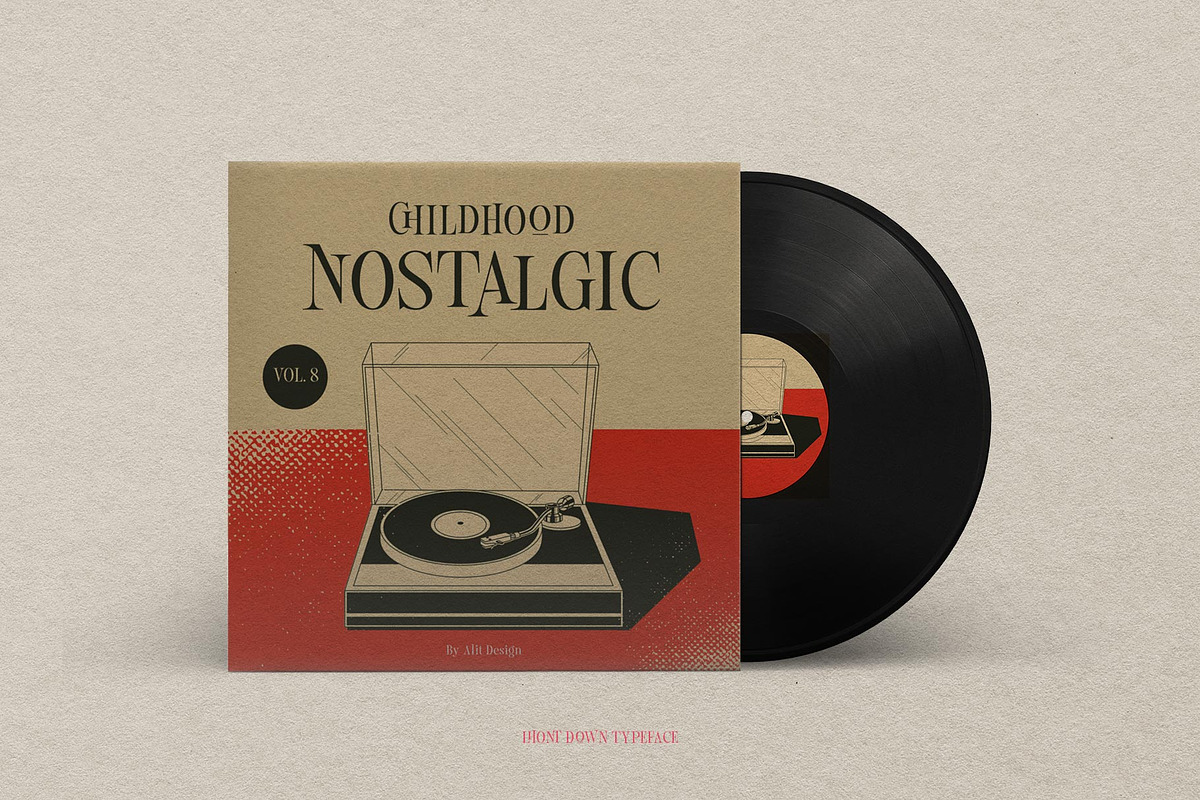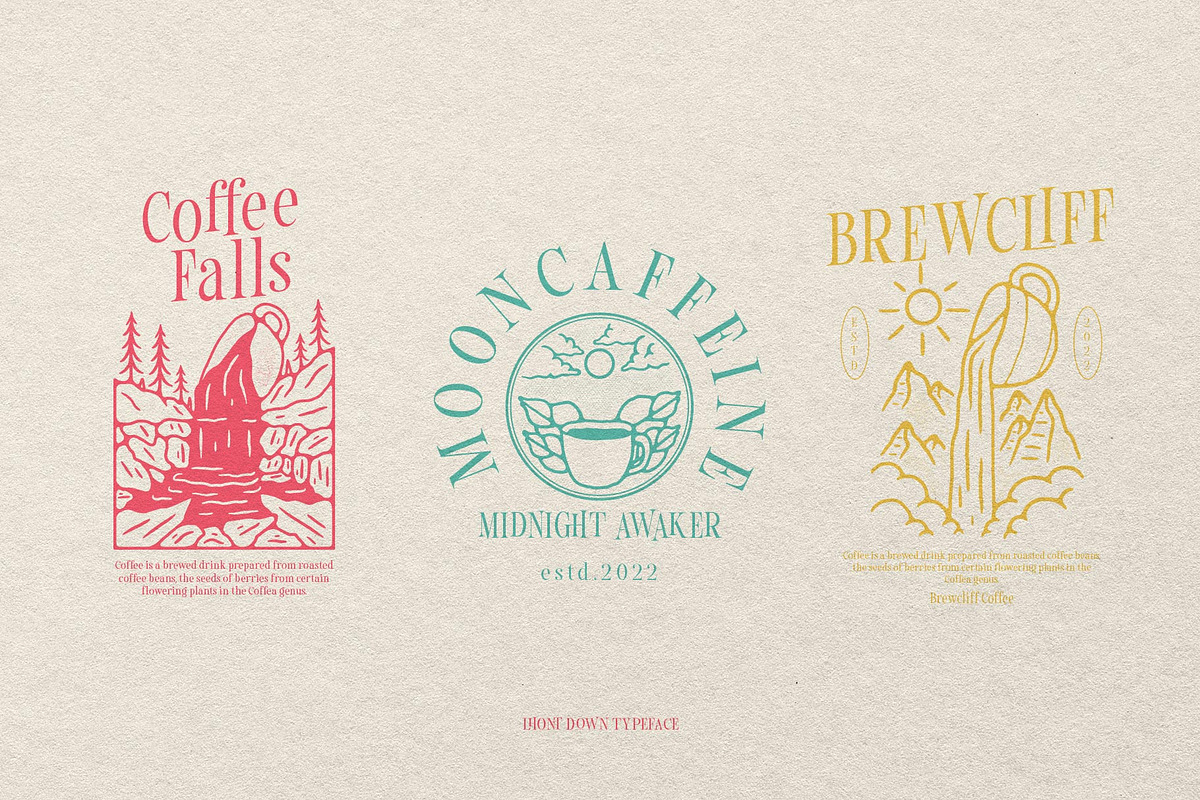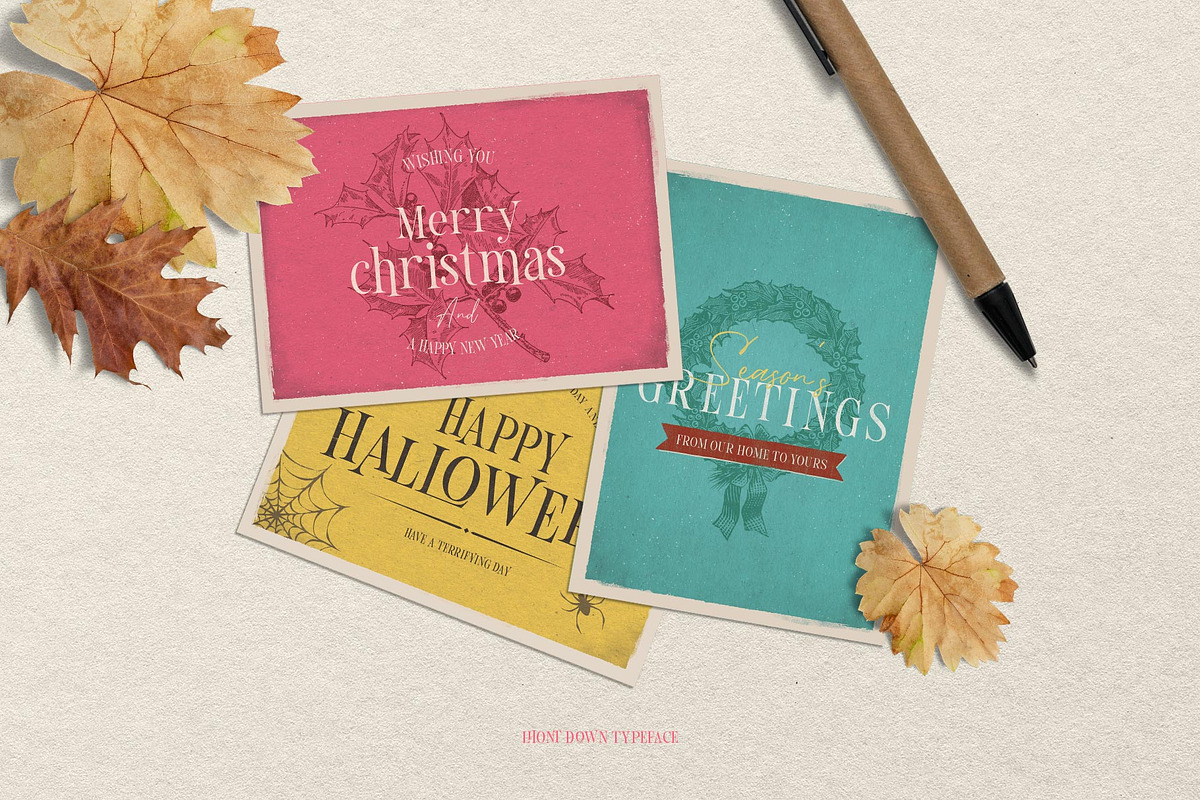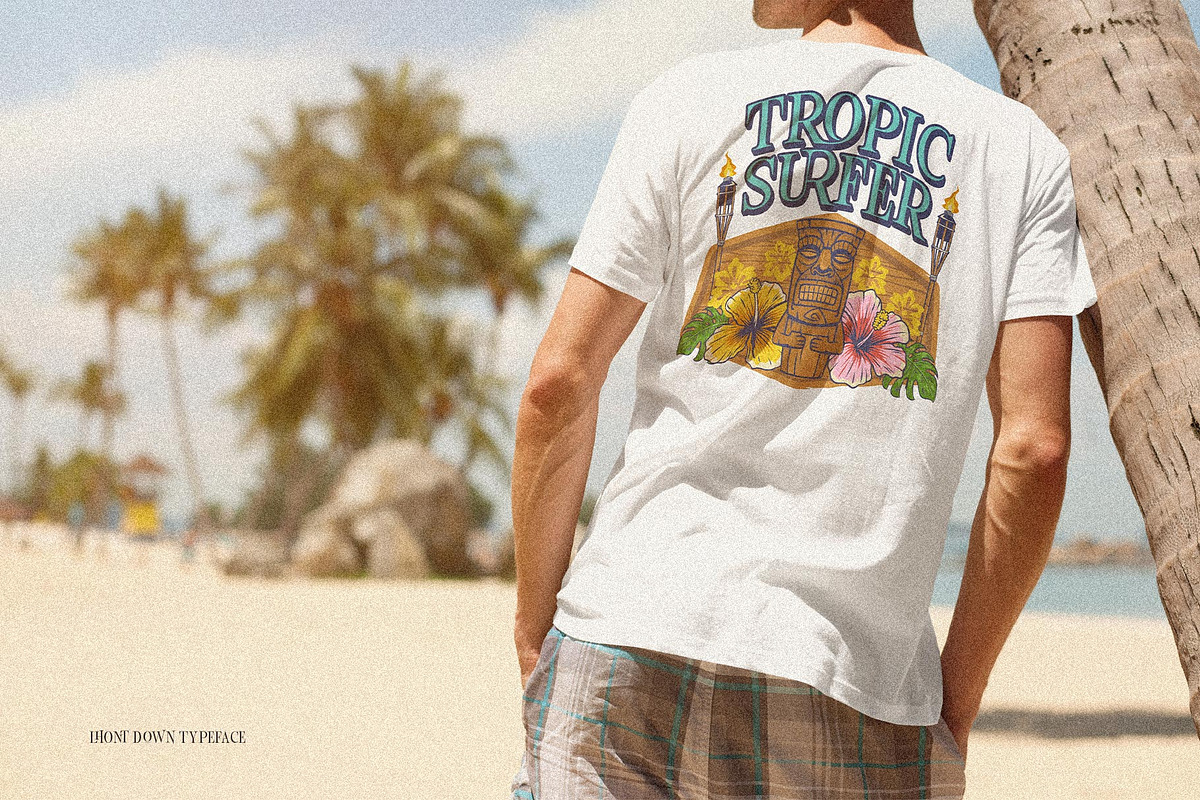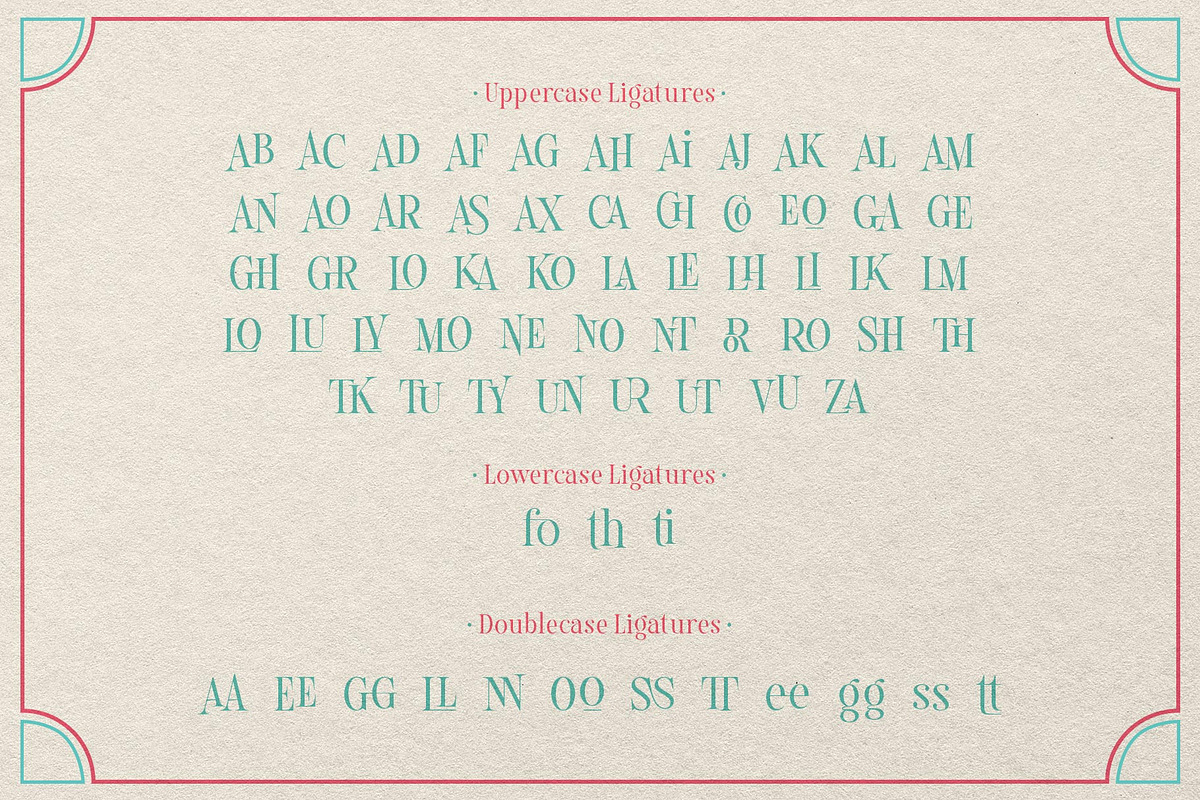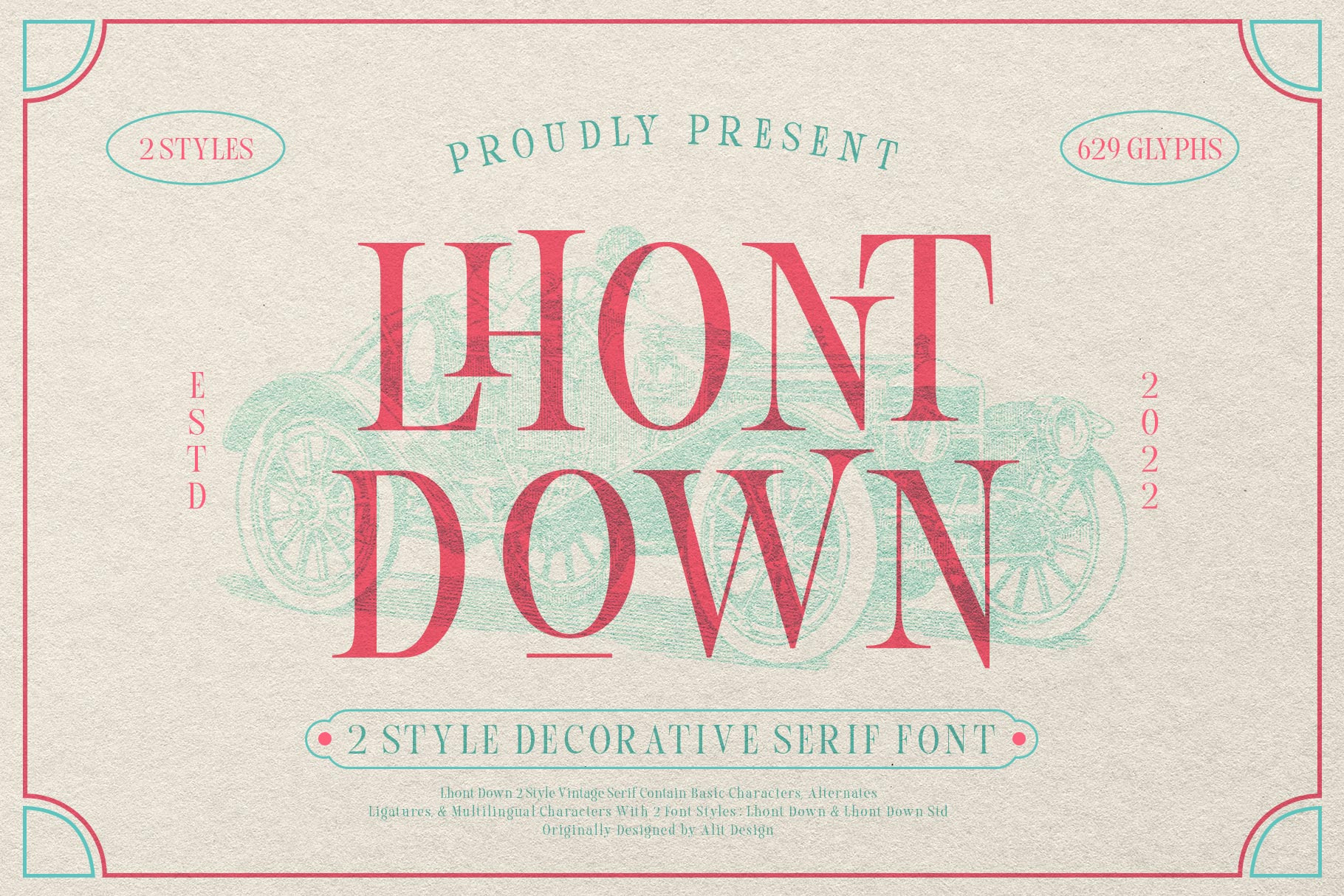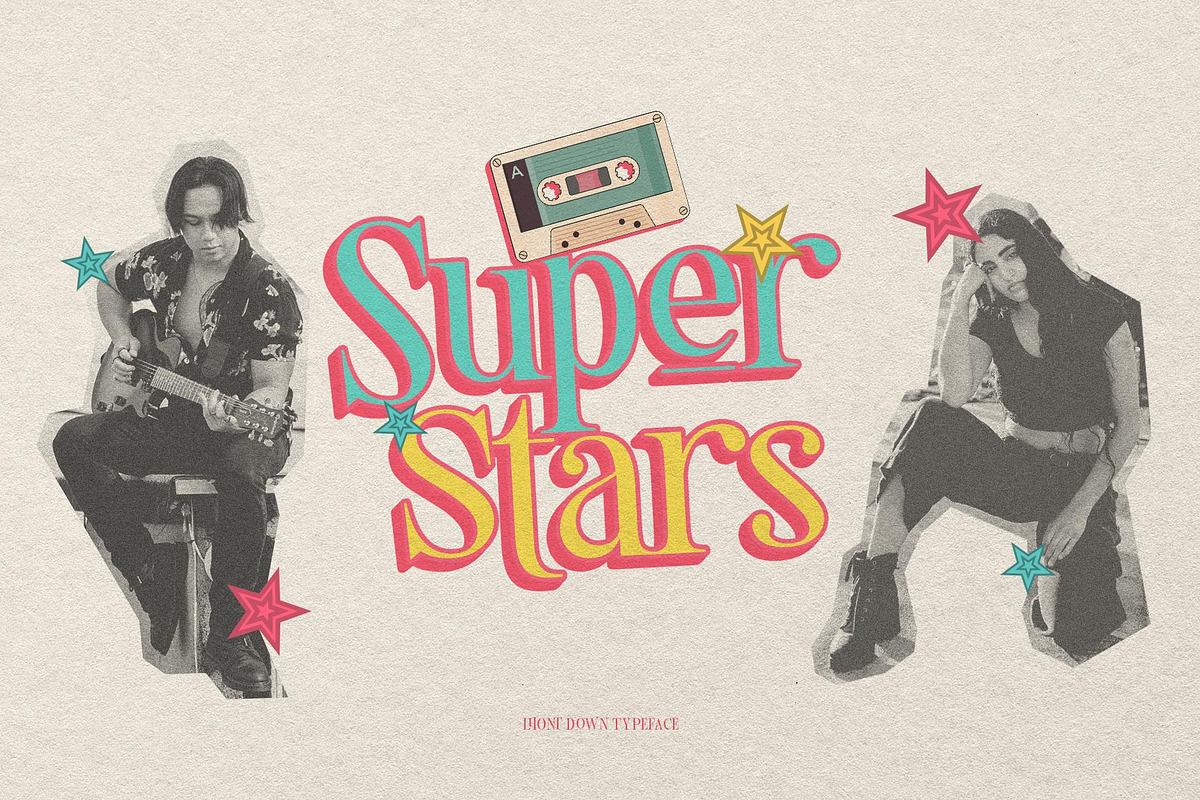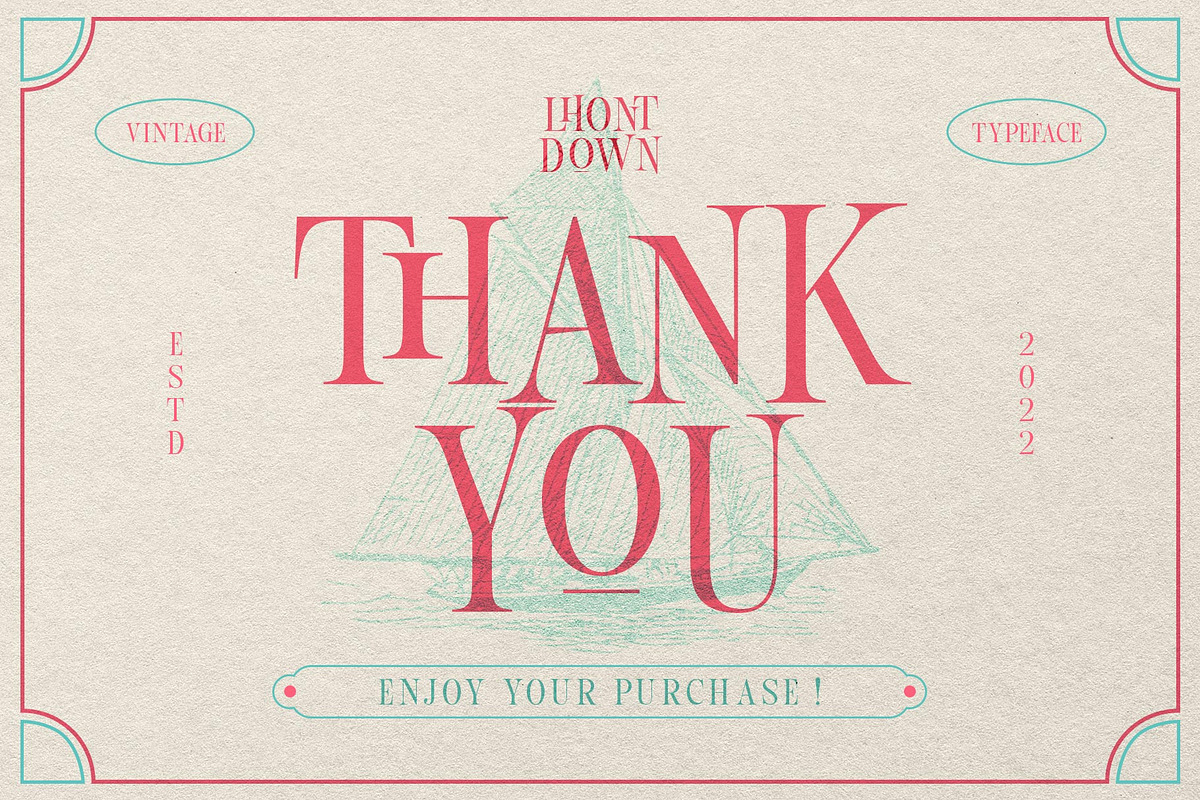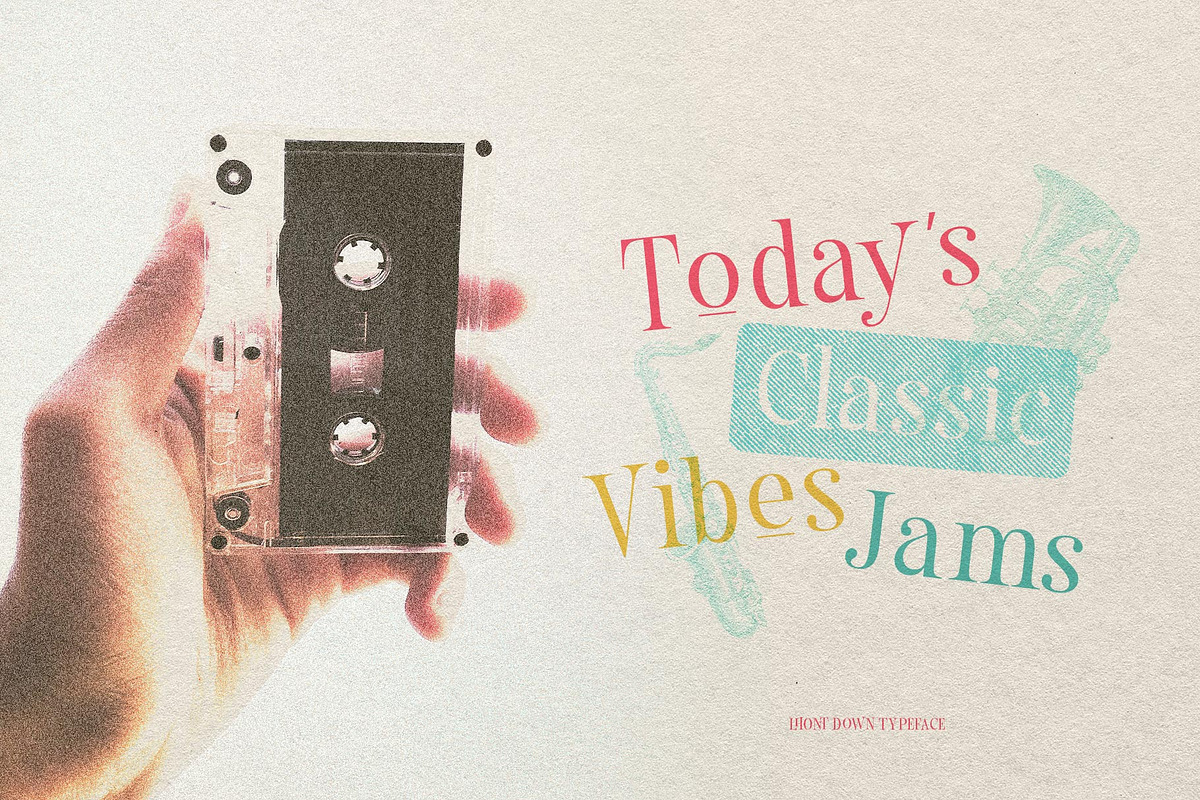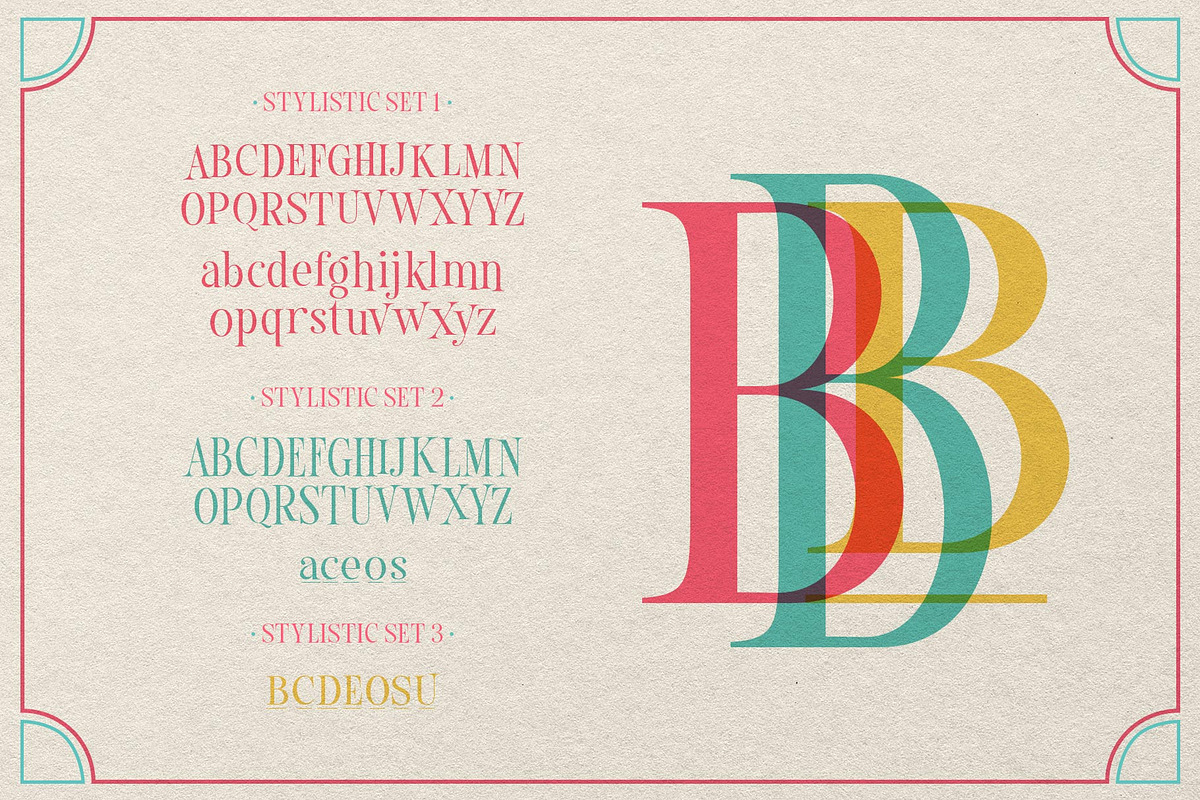
Lhont Down Typeface
Introducing Lhont Down Typeface
The Lhont Down font is designed with a serif font concept that has a decorative display style. Irregular dynamic shapes but impressively bold and unique make the font "Lhont Down" different and steal attention.
The "Lhont Down" font has 2 font styles, namely decorative ones with irregular shapes with standard or normal font styles. Can be combined so that the designed design has a different rhythm. The lhon Down font is perfect for serious or non-serious design concepts, also suitable for classic retro designs, fashion, pop designs and so on.
The "Lhont Down"contains 692 glyphs with many unique and interesting alternative options.